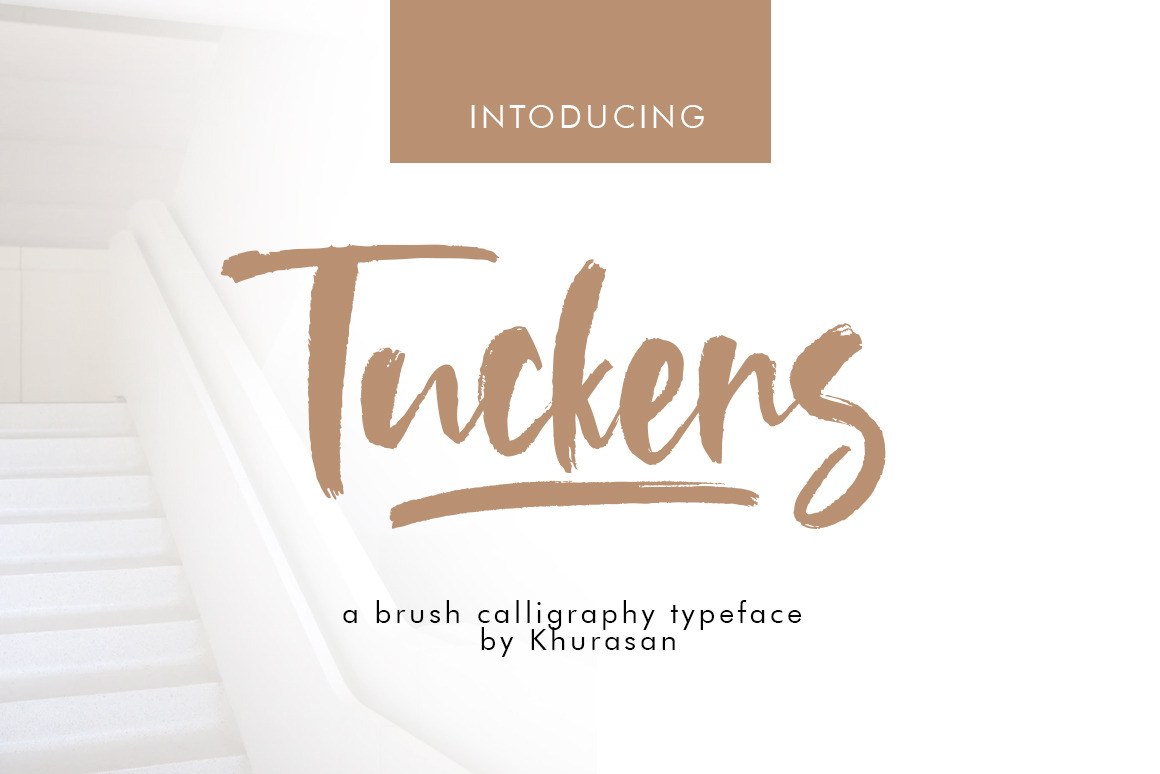
Tuckers Brush Font
The Tuckers is a fresh handwritten font brush, elegant and vintage feel character set. The Tuckers font includes a full set capital and lowercase letters, as well as multi-lingual support, currency figures, numerals, & punctuation.